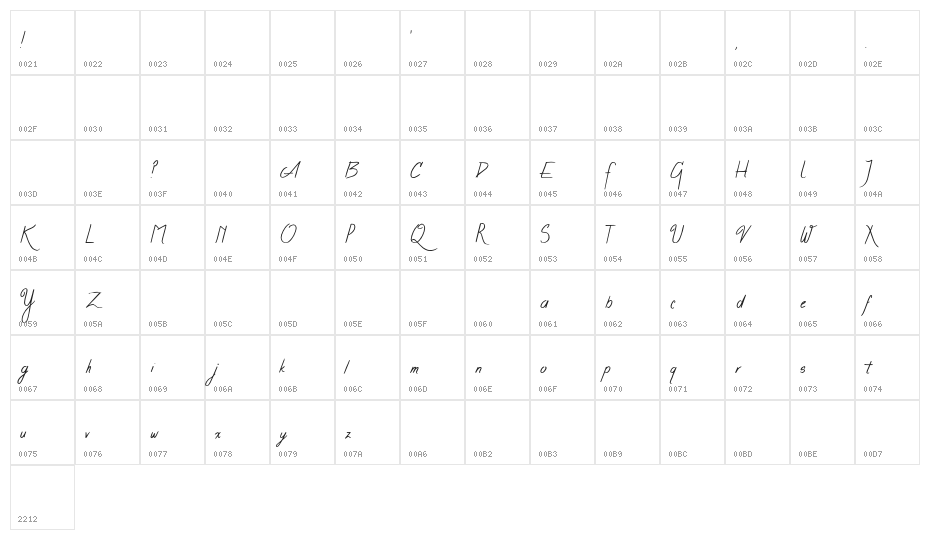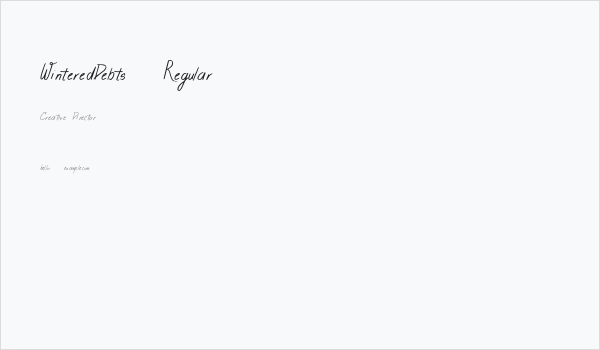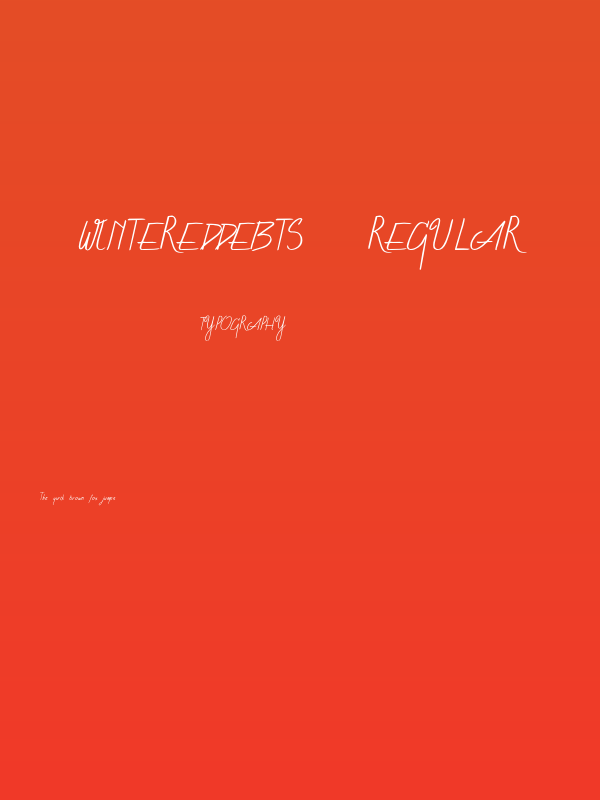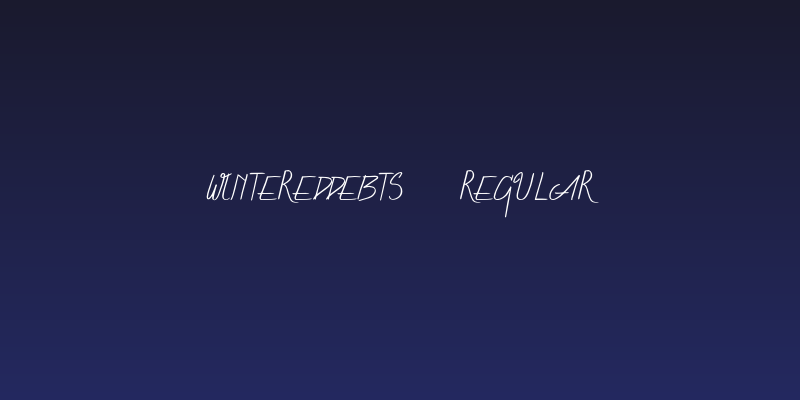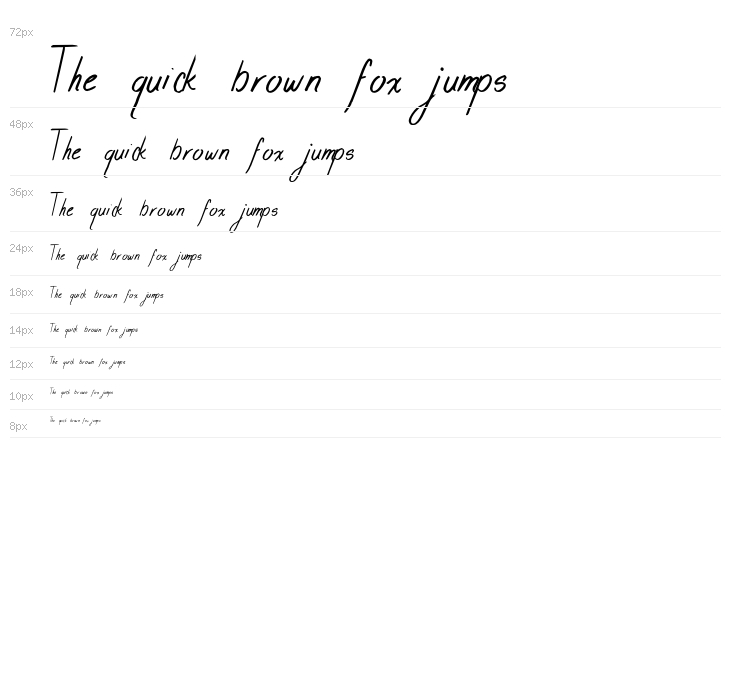
WinteredDebts-Regular Font
WinteredDebts-Regular Description
This font features a flowing, cursive style with elegant, elongated strokes that give it a sophisticated and artistic appearance. The uppercase letters are particularly ornate, with sweeping lines and curves that add a sense of movement and grace. The lowercase letters maintain a consistent style, complementing the uppercase with their own subtle flourishes. The overall design is reminiscent of calligraphy, with a modern twist that makes it suitable for a variety of creative applications. The characters are well-spaced, ensuring readability while maintaining the decorative nature of the font.
Use CaseLogos, Invitations, Artistic projects
Proposed ProjectsIdeal for wedding invitations, greeting cards, branding, and artistic projects requiring a touch of elegance.